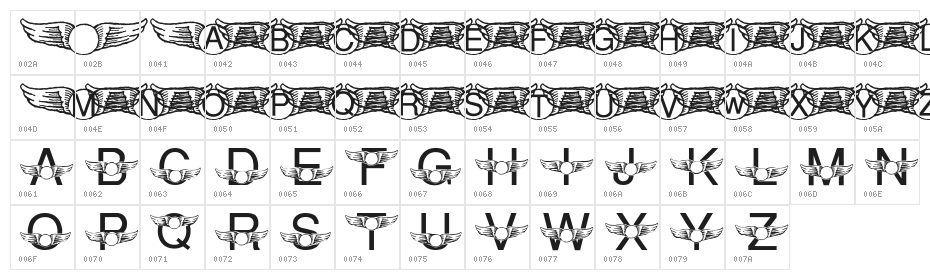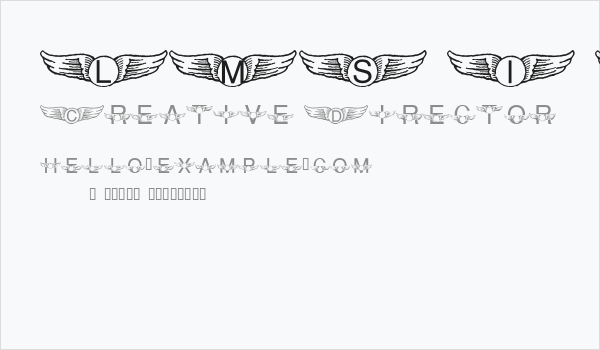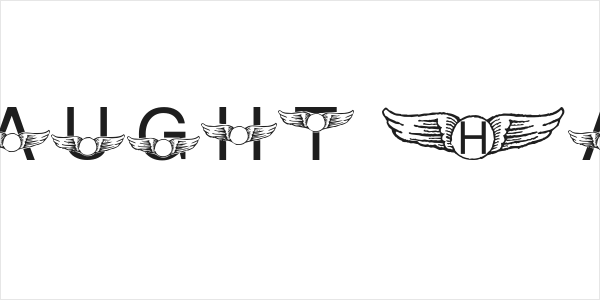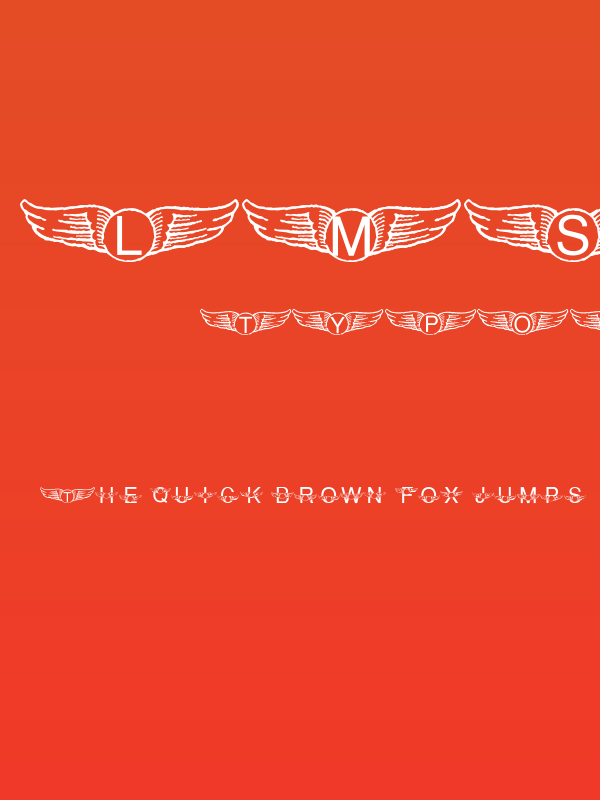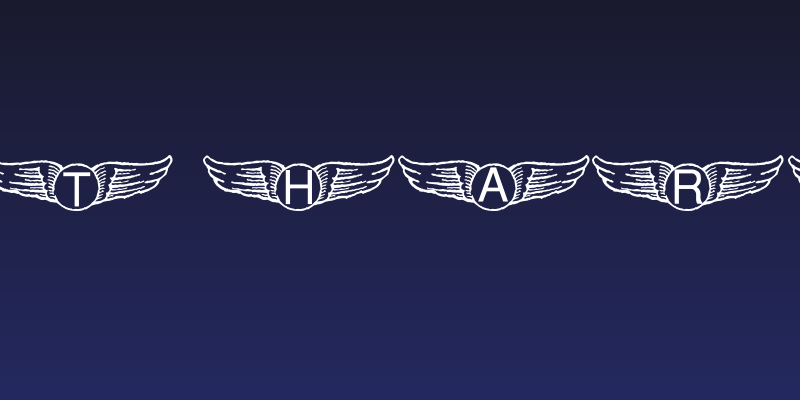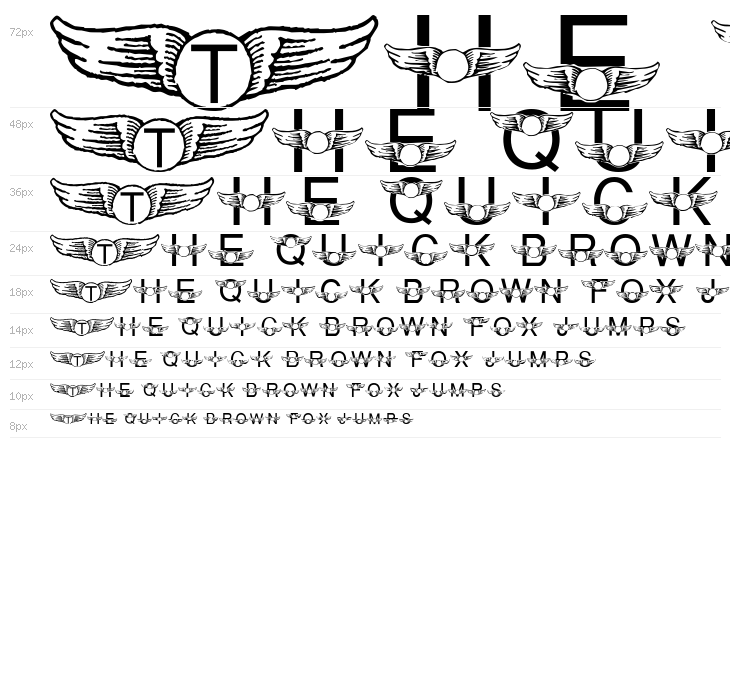
LMS I Caught Harry's Snitch Font
LMS I Caught Harry's Snitch Description
This decorative font features a unique design where each letter is adorned with a winged motif, reminiscent of a magical or fantasy theme. The uppercase letters are bold and evenly spaced, with a consistent height and width, creating a uniform appearance. The font lacks lowercase letters and numbers, focusing instead on its distinctive embellishments. The winged design adds an element of whimsy and charm, making it ideal for projects that require a touch of fantasy or enchantment. The overall aesthetic is both playful and elegant, suitable for creative and themed applications.
| Use Case | Logos, Headlines, Themed Events |
| Proposed Projects | Perfect for fantasy book covers, themed event invitations, or magical branding materials. |